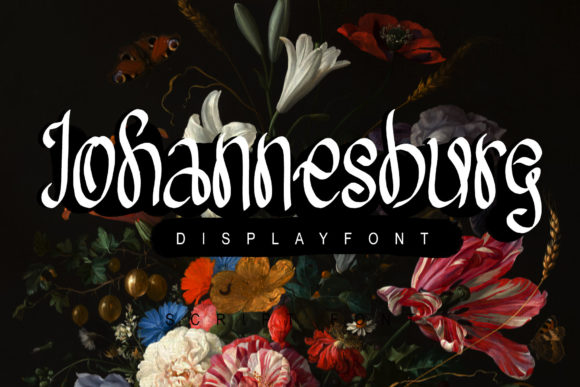
Feast your eyes on Johannesburg Font, a captivating display typeface exuding a playful and engaging personality. Its graceful curves dance across the page, adding a touch of whimsy to your design projects. Dive into a world of creative possibilities with Johannesburg, the perfect font for crafting wedding invitations, heartfelt thank-you cards, inspiring quotes, and cheerful greeting cards. Its versatility extends to logos, business cards, and any design seeking a dash of lighthearted elegance.
Imagine your words taking on a life of their own, infused with the joie de vivre that Johannesburg Font embodies. Witness the transformation as ordinary text morphs into an expression of pure delight, capturing the attention of your audience with effortless charm. As you type, feel the energy of Johannesburg Font flowing through your fingertips, guiding you towards design masterpieces that speak volumes.
Step into a realm where creativity knows no bounds, where Johannesburg Font becomes your artistic muse. Embrace the beauty of simplicity, letting the font's delicate strokes guide you towards designs that resonate with grace and sophistication. From elegant wedding invitations that set the tone for a day filled with love to playful thank-you cards that convey heartfelt gratitude, Johannesburg Font elevates your designs to new heights of visual splendor.
Indulge in the endless possibilities that Johannesburg Font offers, allowing your imagination to soar and your designs to flourish. Discover the joy of creating logos that exude professionalism and business cards that leave a lasting impression. Let Johannesburg Font be your creative companion, guiding you towards design triumphs that captivate and inspire. Fall under the spell of its enchanting curves and immerse yourself in a world where beauty and functionality dance together in perfect harmony.